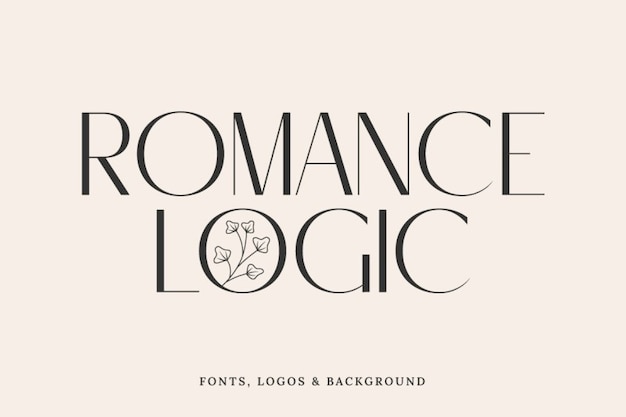
Romance Logic Font
Romance logic is the right font to enrich your projects with a classic and neat touch. You can use this romantic format for any of your creations. Add some harmony and tranquillity to your logos and backgrounds. Download this font in a single click to use it right away.